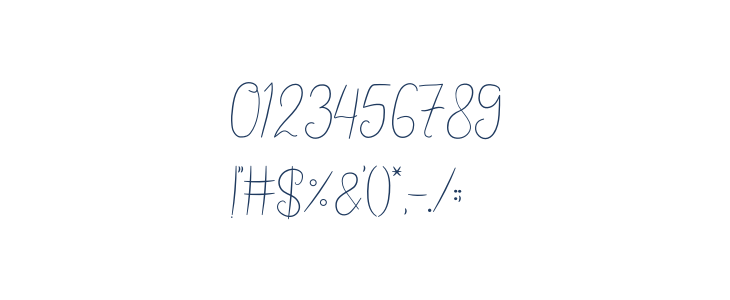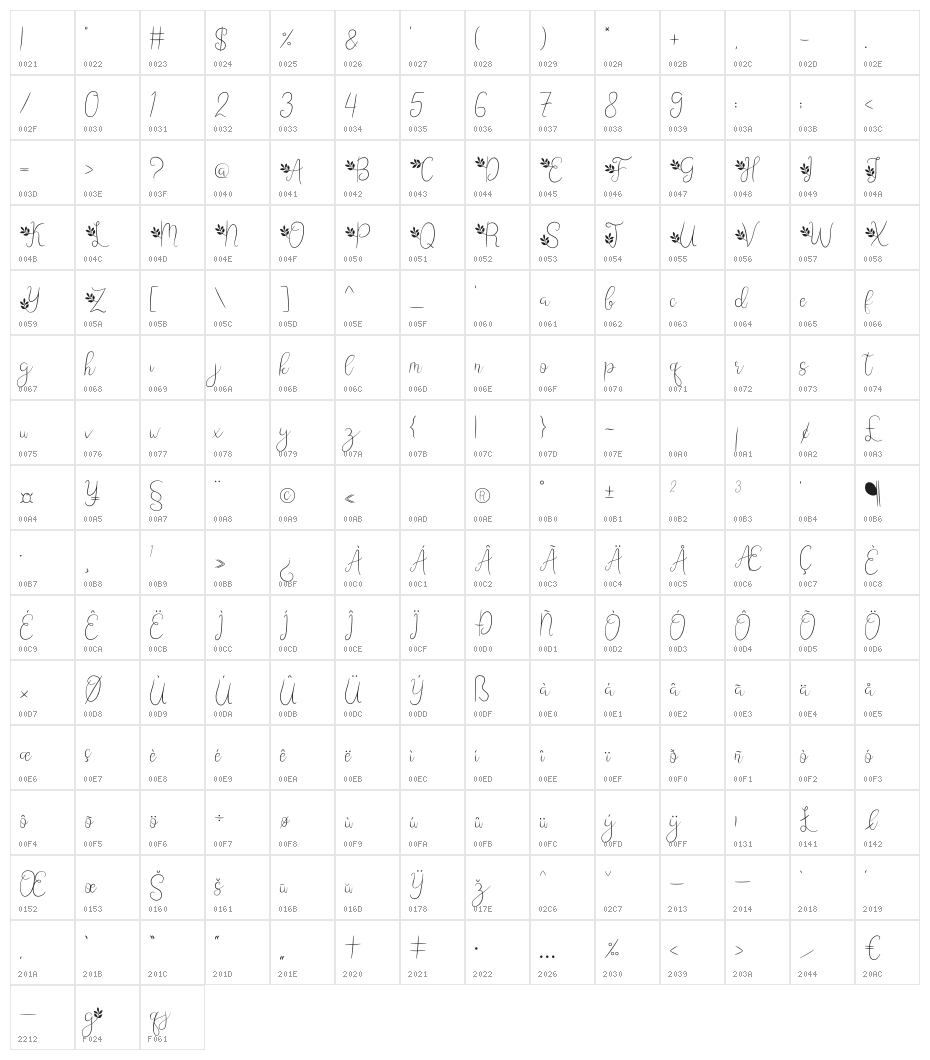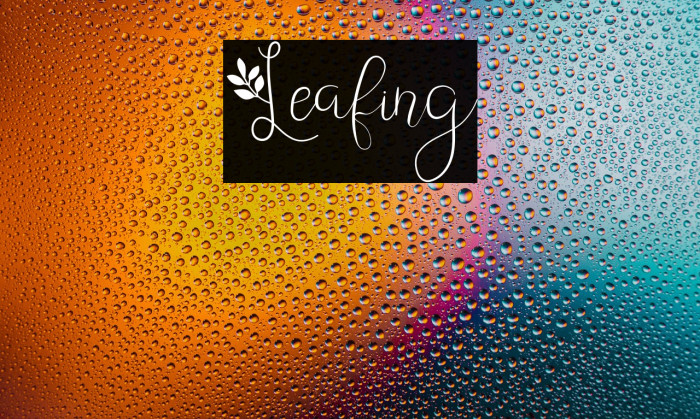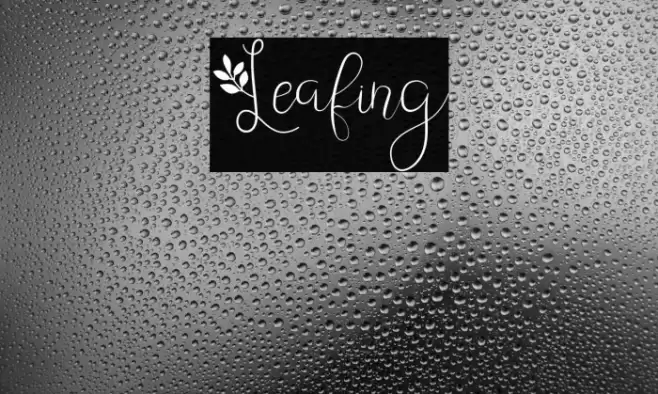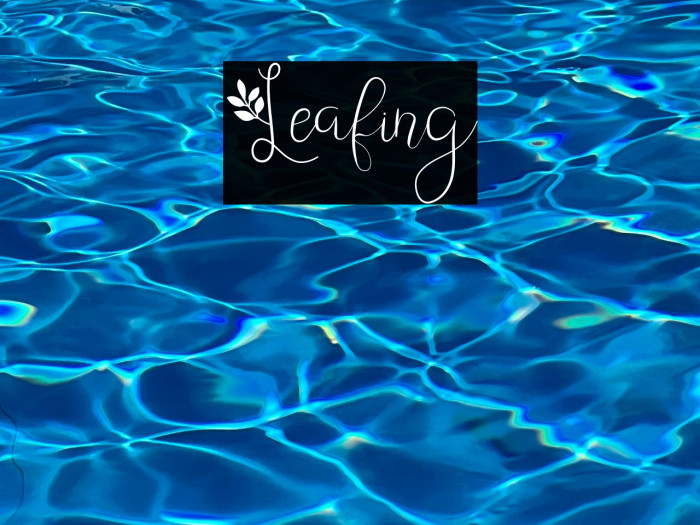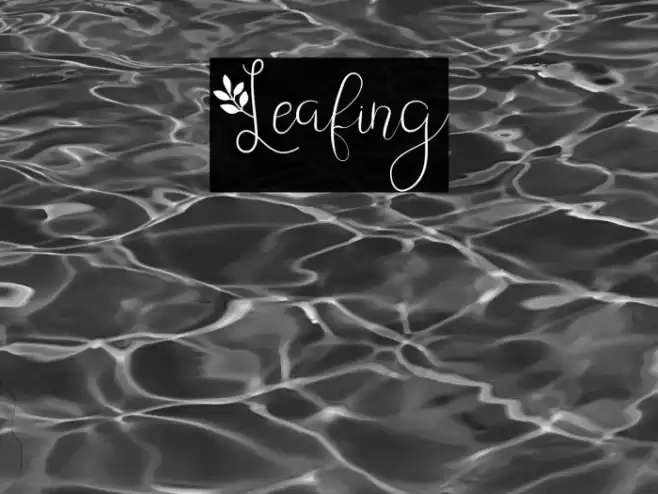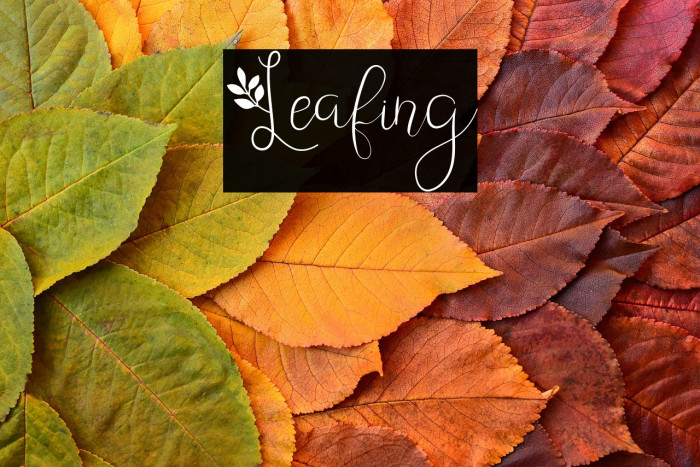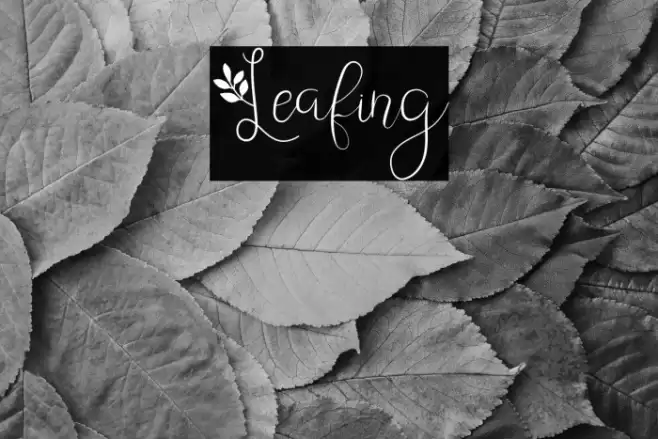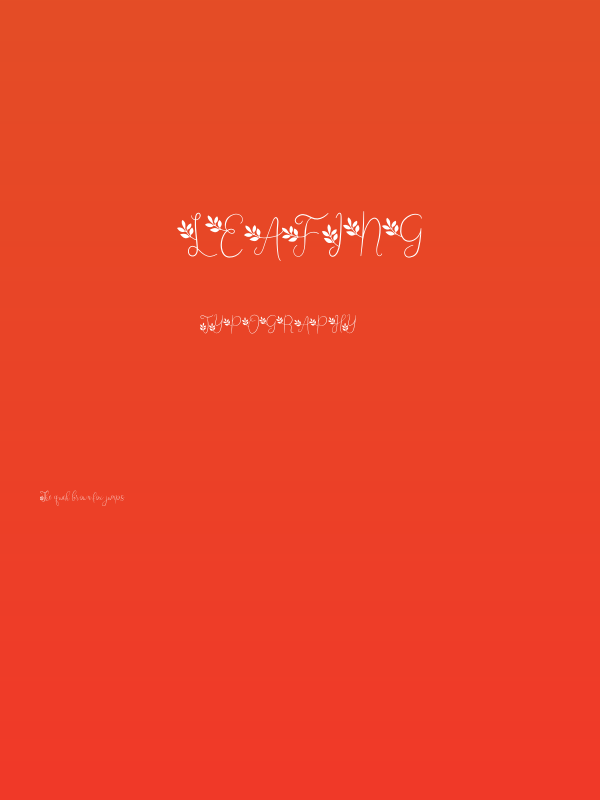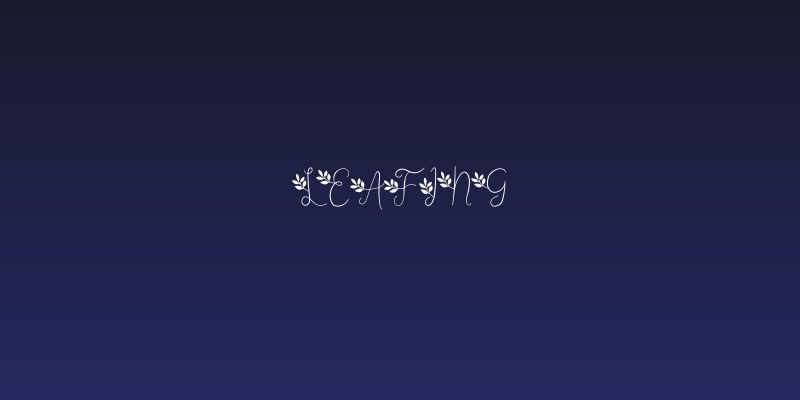
Leafing Font
Leafing Description
This decorative font features elegant, flowing script with a unique twist: each uppercase letter is adorned with delicate leaf motifs, adding a natural and whimsical touch. The lowercase letters maintain a graceful cursive style, complementing the ornate uppercase design. The numerals and special characters are crafted with the same fluidity, ensuring a cohesive look throughout. The font's thin strokes and gentle curves create a light and airy feel, making it ideal for projects that require a touch of elegance and nature-inspired aesthetics.
| Use Case | Logos, Invitations, Decorative Text |
| Proposed Projects | Ideal for wedding invitations, nature-themed branding, greeting cards, and decorative posters. |